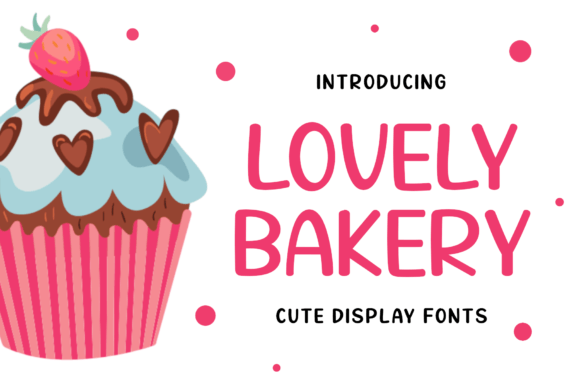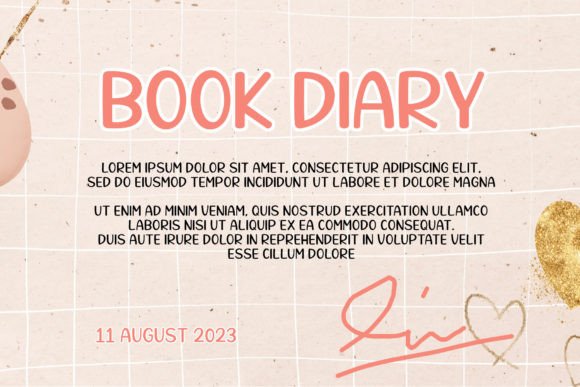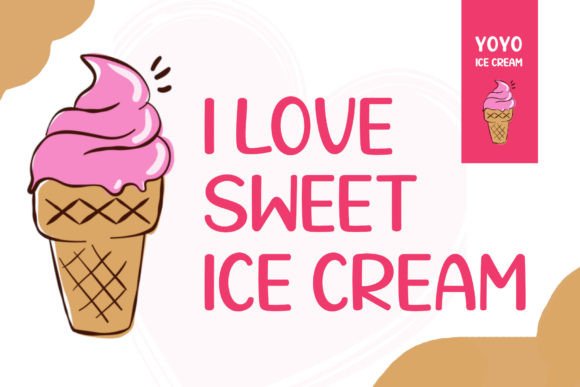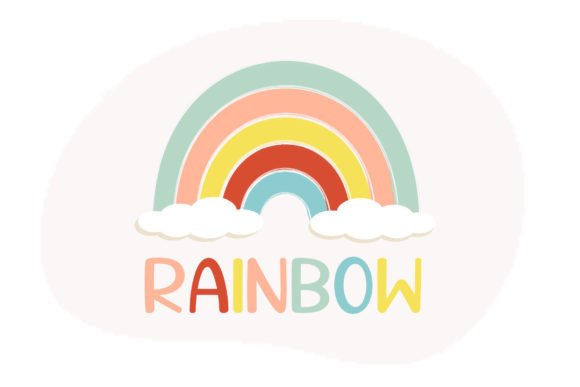
Lovely Bakery Font: Cute Sans Serif for Crafts & DIY Projects
About the Lovely Bakery Font
Introducing the Lovely Bakery Font, a beautifully crafted typeface designed to elevate your creative projects. Lovely Bakery is a sans serif font with a cute and quirky shape.
This font is suitable for use in several of your design projects such as posters, birthday cards, t-shirt designs, mugs, and tote bags, and can be used for various handmade creations.
Lovely Bakery’s playful character makes it ideal for branding projects targeting a young, fun-loving audience, particularly in food, beverage, or children’s products. It excels in headlines, short taglines, and logos, adding a touch of whimsy. However, its quirky shapes reduce readability in body text or UI elements requiring extensive information.
Consider pairing Lovely Bakery with a clean sans-serif like Open Sans for body copy, creating a balanced contrast between playful display and legible text. Alternatively, a classic serif such as Garamond could provide sophisticated counterpoint, enhancing the overall design’s visual appeal.
The font’s inherently friendly and approachable personality makes it less suitable for serious or formal contexts. Avoid using it for projects requiring a sense of professionalism or authority.
Lovely Bakery Font Usage Examples
Lovely Bakery Font Example